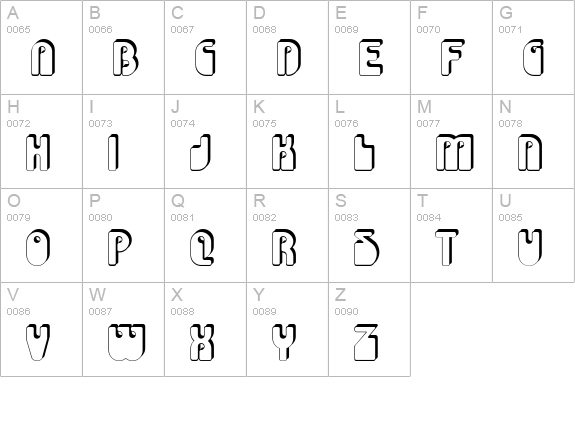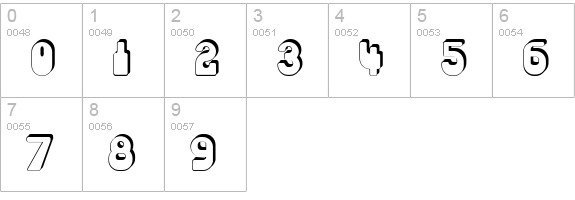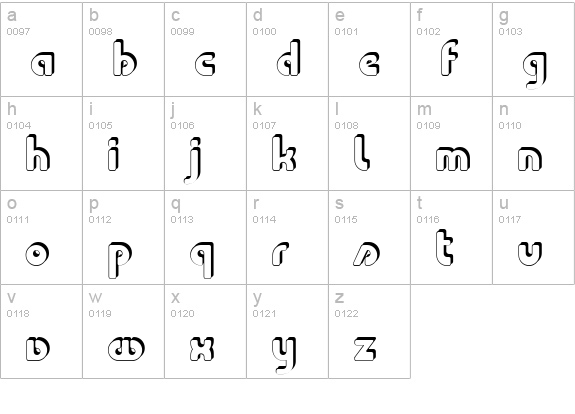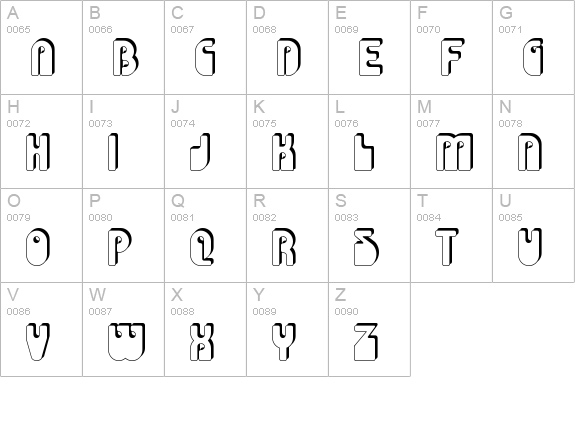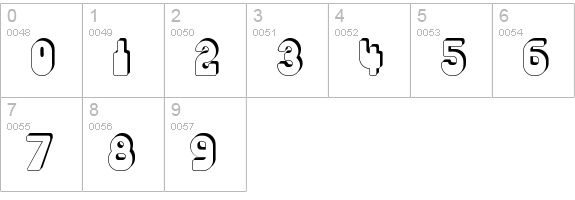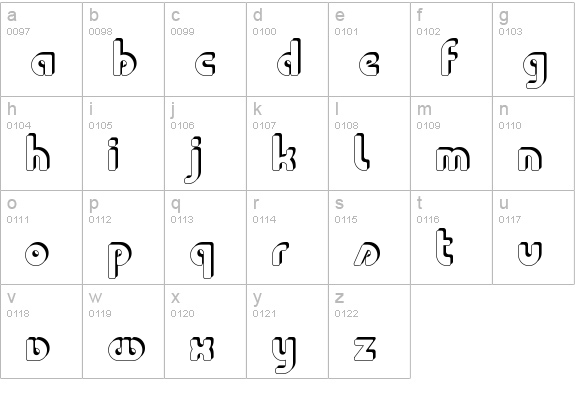
Choda Chado Font Details
Choda Chado font is a stunning display font that brings a unique touch to any design project. With its bold and artistic style, this font is perfect for headlines, logos, posters, and more. The sharp edges and striking curves give Choda Chado font a modern and edgy look that is sure to make your designs stand out. Best of all, Choda Chado font is available for free download at FontsMarket.com. This means you can easily access this eye-catching font and use it in your projects without any cost. Don't miss out on this fantastic opportunity to enhance your designs with the distinctive charm of Choda Chado font. Download it today and unleash your creativity!